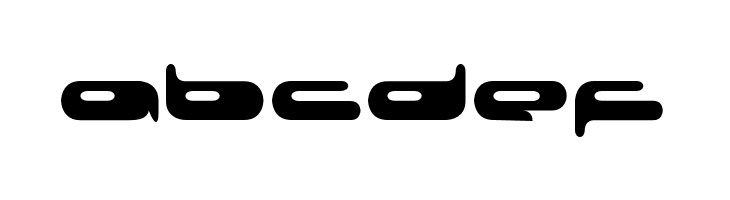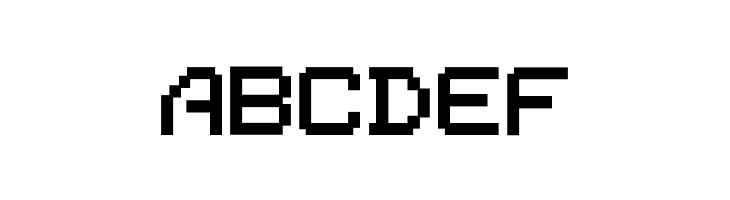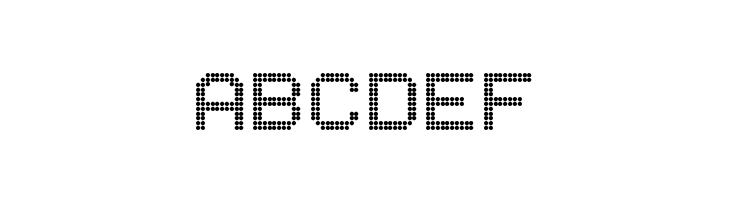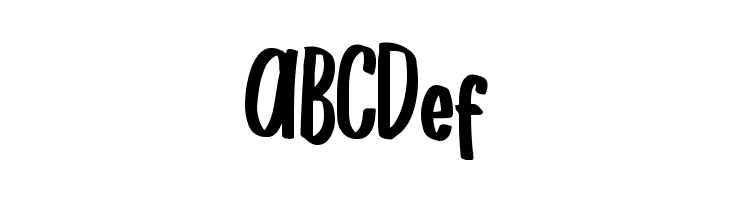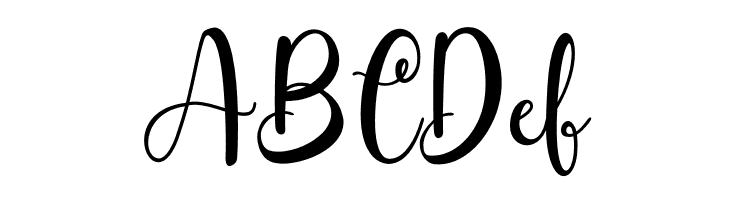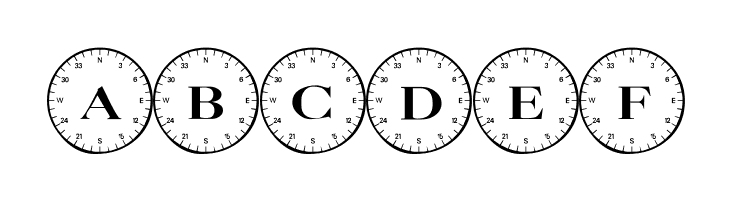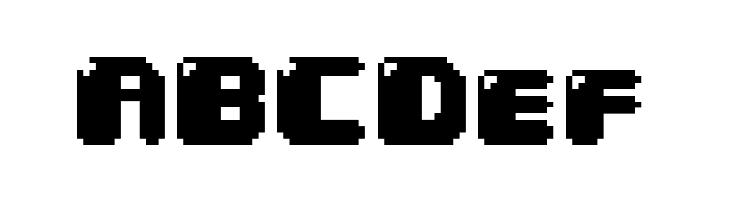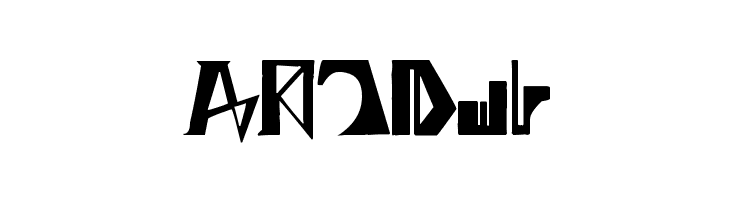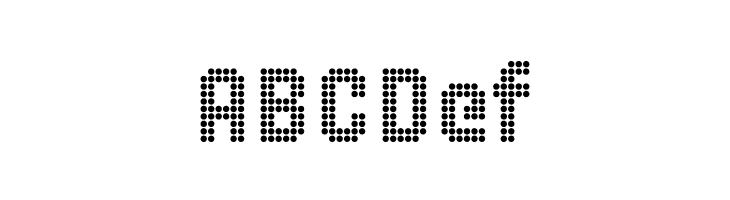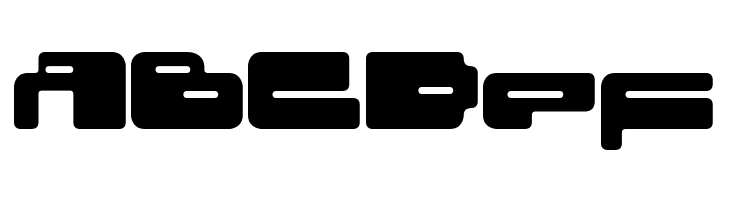
• 003 Anna Caps
( Jane Bond )
A whimsical, hand-drawn font with playful loops and swirls.
• 003 Engineer's Hand
( Jane Bond )
A casual, handwritten font with a playful yet structured appearance.
• 003 Katie Caps
• 01 Digit2000
A pixelated, digital font with a retro, technological style.
• 01-01-00
• 01FontremixType38
A creative and eclectic display typeface with diverse, artistic character designs.
• 02.10 fenotype
A bold, futuristic font with rounded edges and geometric shapes.
• 02.10ital fenotype
A bold, futuristic font with geometric shapes and smooth curves, slightly italicized for a dynamic look.
• 02FontremixType36
A decorative and eclectic font with unique, artistic characters and symbols.
• 03.20 1
• 04
A flowing, cursive script font with elegant loops and swashes.
• 04b(RUS BY LYAJKA) 30
A bold, pixelated font with a retro, 8-bit style.
• 06 29
• 07-GHOST Zaiphon
A bold, angular font with high contrast and geometric shapes, perfect for impactful designs.
• 071MKSDBoldA
A bold, geometric font with a strong, modern presence.
• 071MKSDBoldB
A bold, modern font with a geometric structure and uniform thickness.
• 071MKSDKTBold
A bold, geometric font with a modern and structured appearance.
• 071MKSDKTMedium
A bold, geometric font with a modern and structured design.
• 071MKSDMediumA